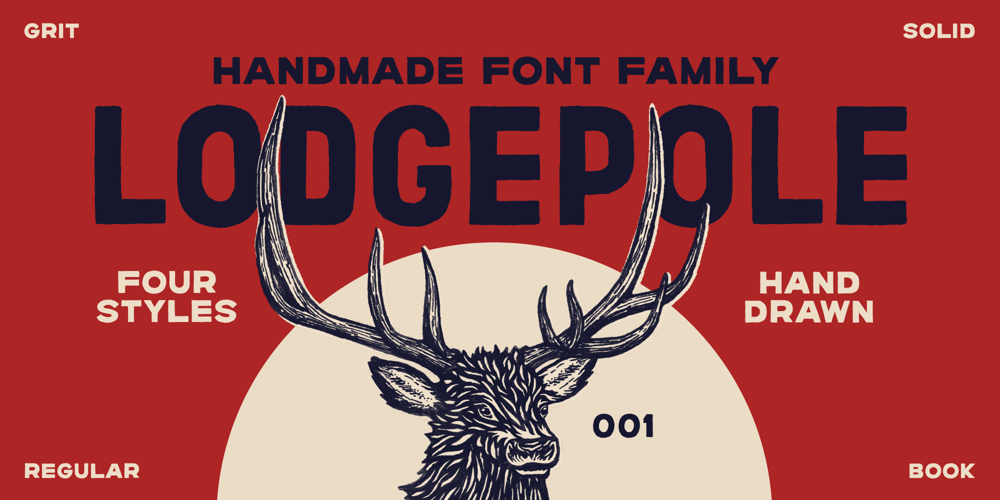
Lodgepole Font Family was designed by Zach Minard and published by Tall Trees Design Co. Lodgepole contains 4 styles and family package options. Lodgepole is a hand illustrated font family created by Zach Minard of Tall Trees Design Co. Inspired by timeless legibility and worn National Park signage. Lodgepole Regular and Book are designed to pair perfectly together, while both of these styles are available as Solid (With no internal texture) or Grit. Lodgepole Grit uses the strokes from the original pen-to-paper illustration for all texture, creating an authentic one-of-a-kind texture.